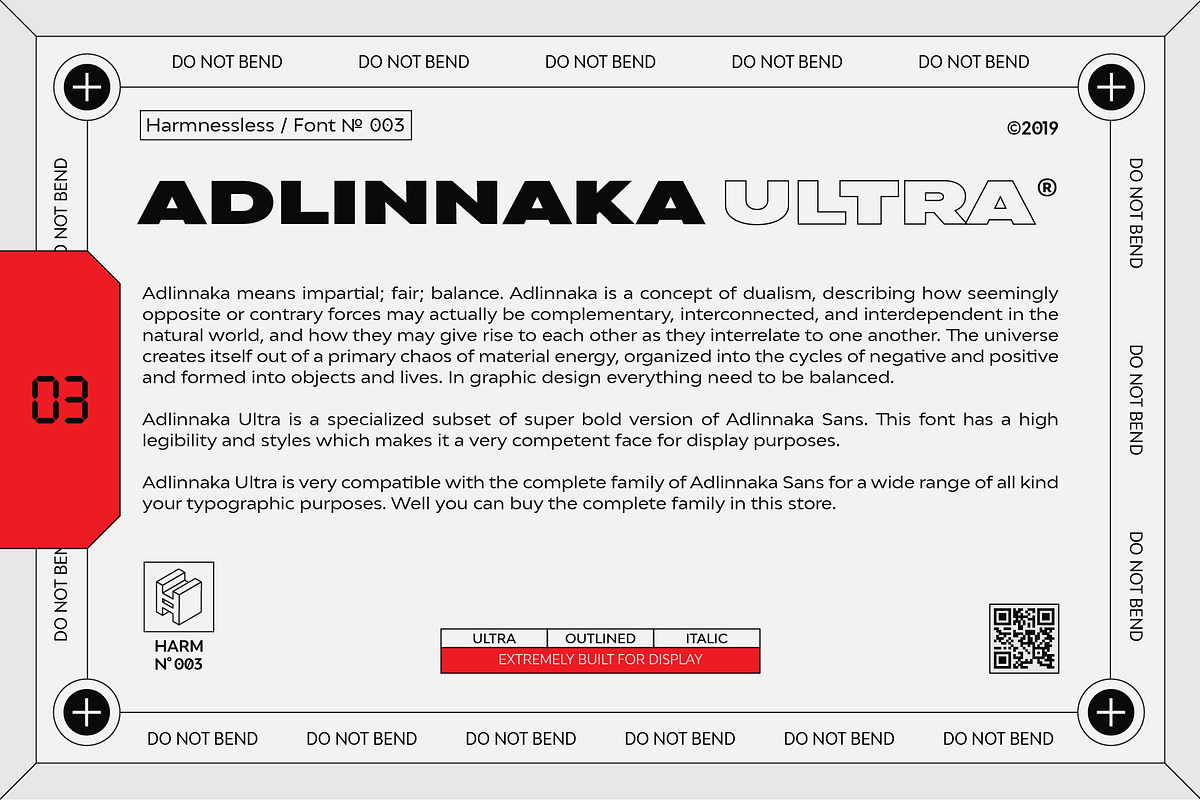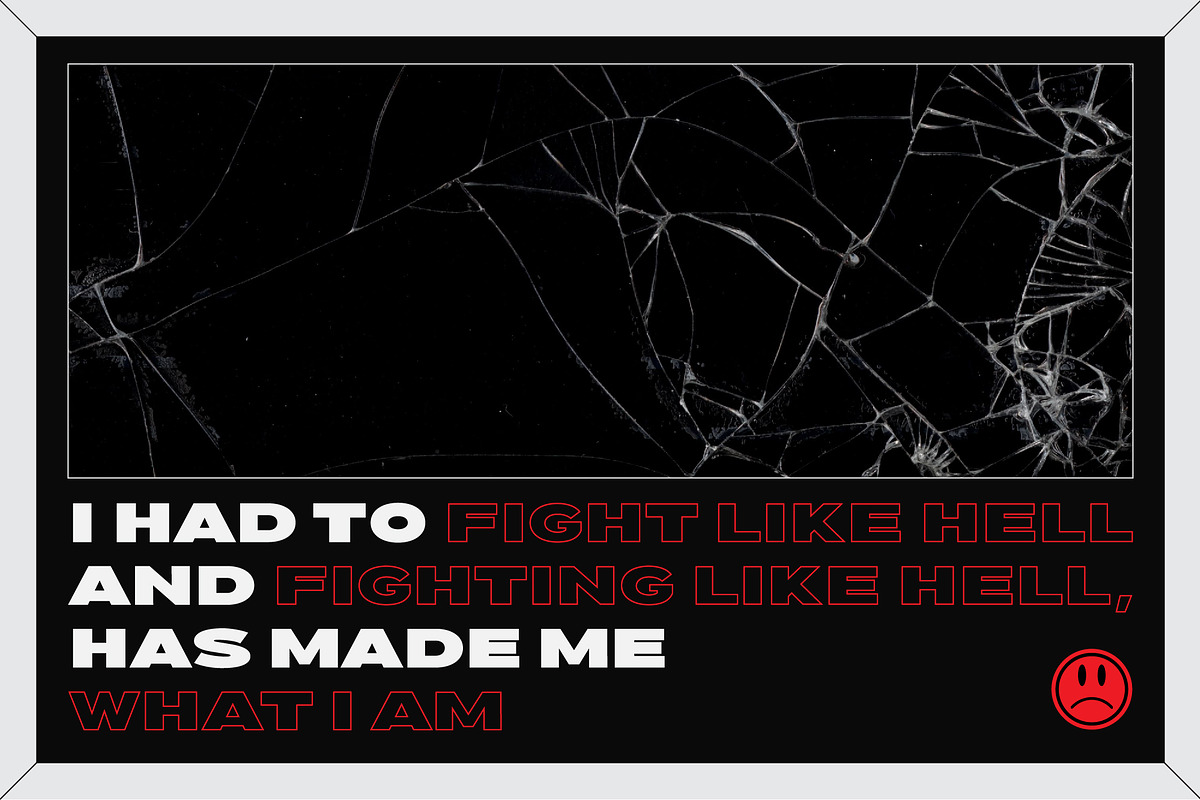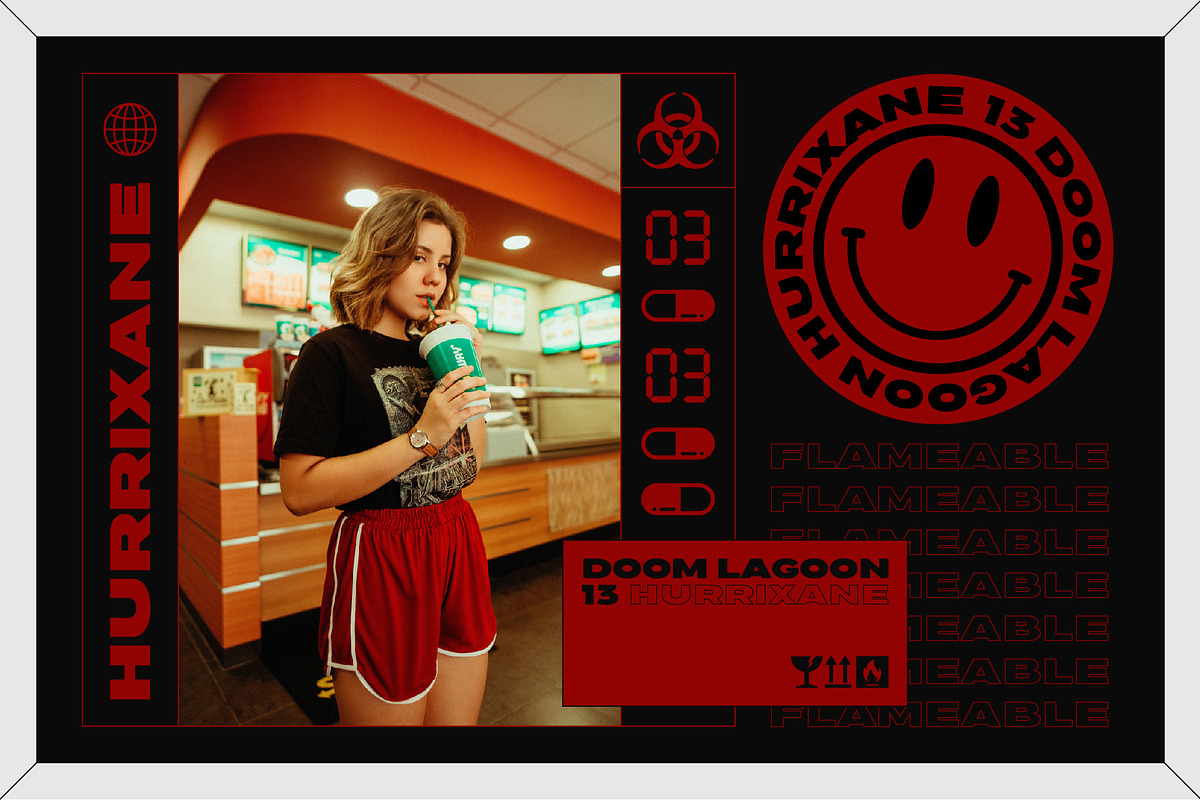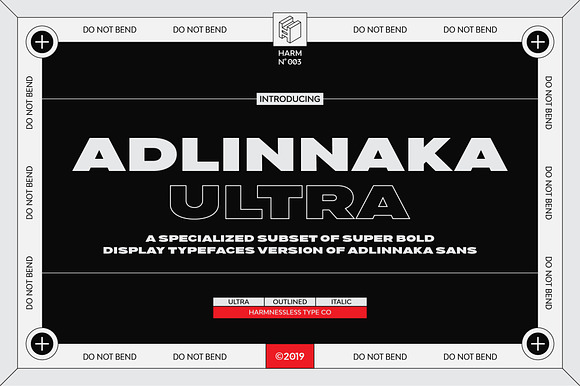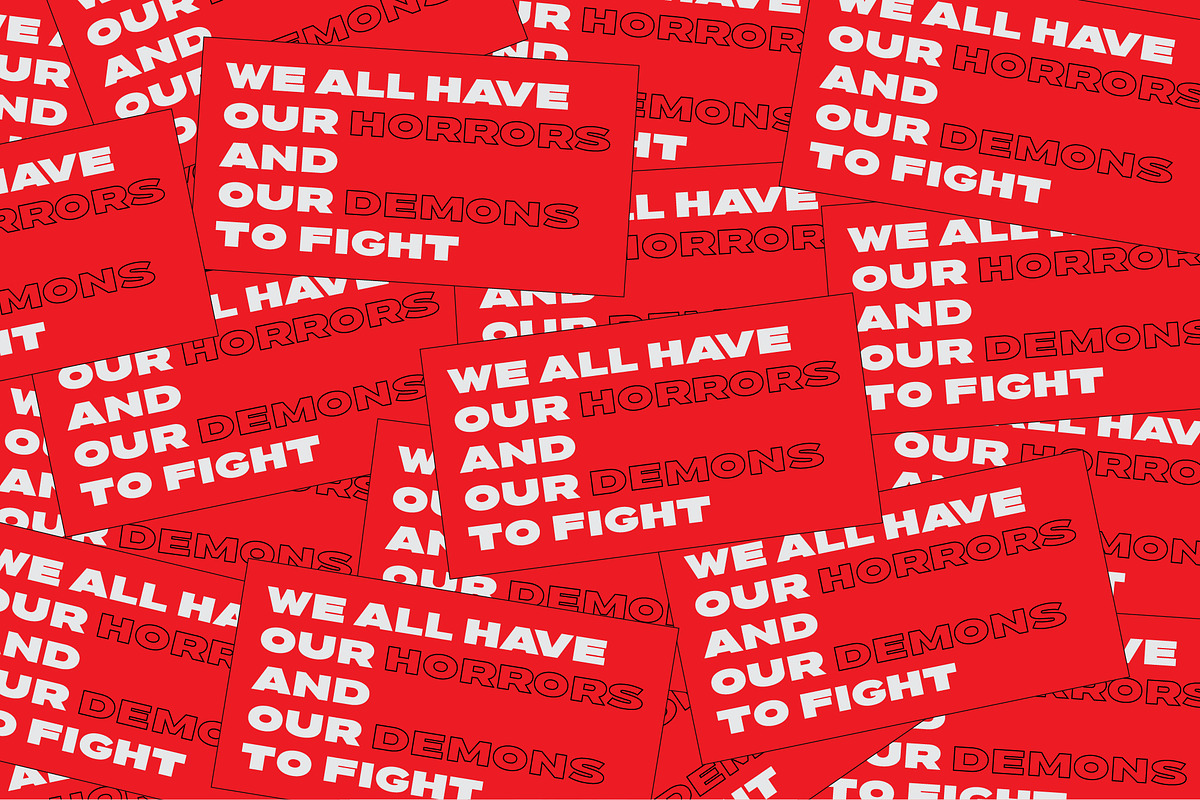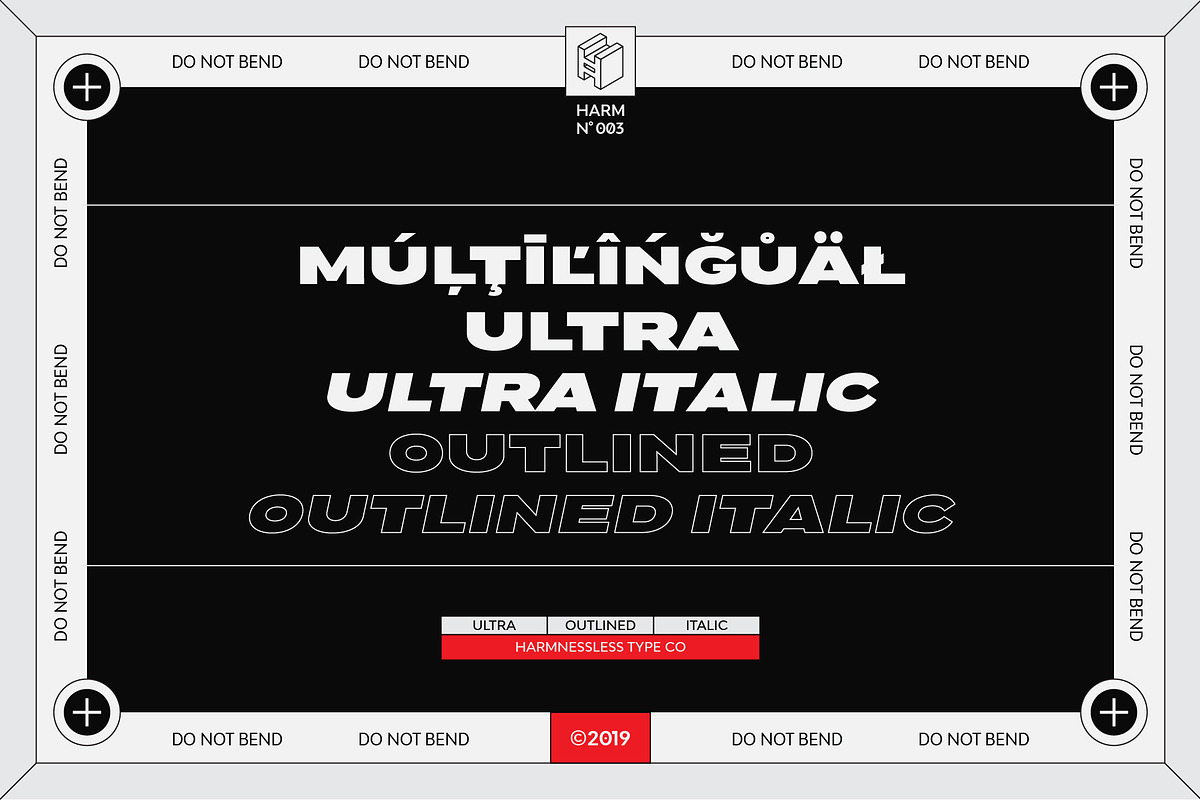
Adlinnaka Ultra - Display Font
Adlinnaka means impartial; fair; balance. Adlinnaka is a concept of dualism, describing how seemingly opposite or contrary forces may actually be complementary, interconnected, and interdependent in the natural world, and how they may give rise to each other as they interrelate to one another. The universe creates itself out of a primary chaos of material energy, organized into the cycles of negative and positive and formed into objects and lives. In graphic design everything need to be balanced.
Adlinnaka Ultra is a specialized subset of super bold version of Adlinnaka Sans. This font has a high legibility and styles which makes it a very competent face for display purposes.